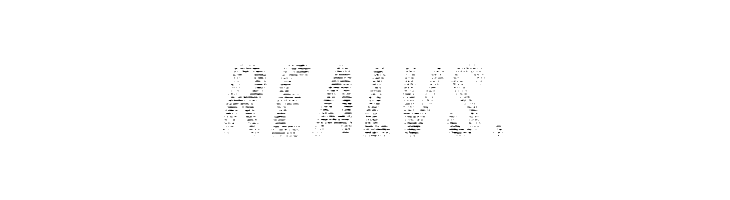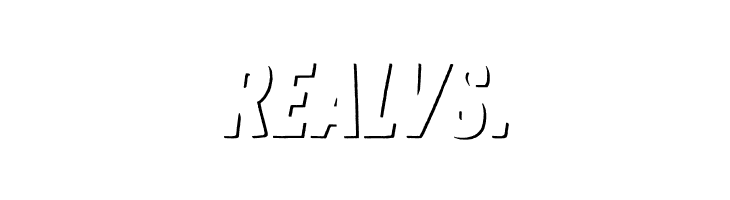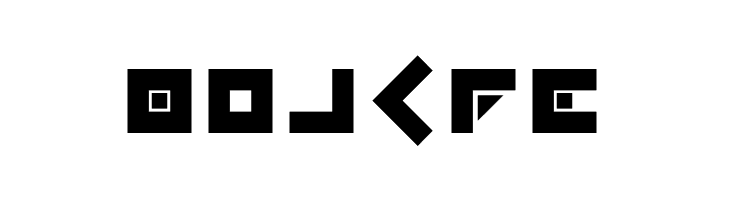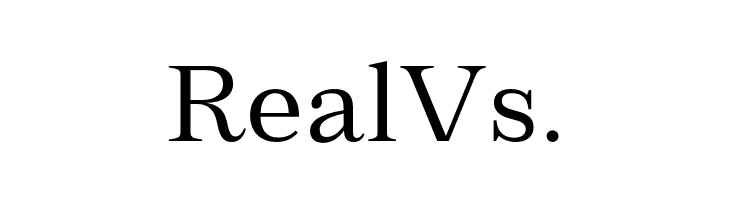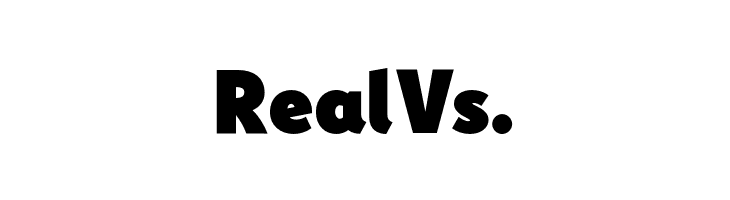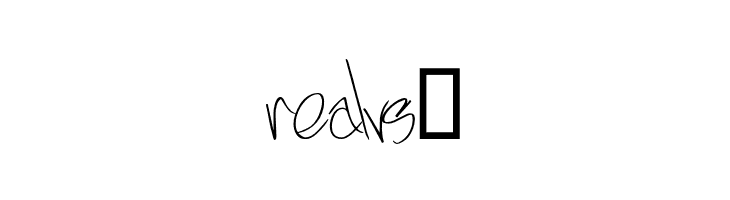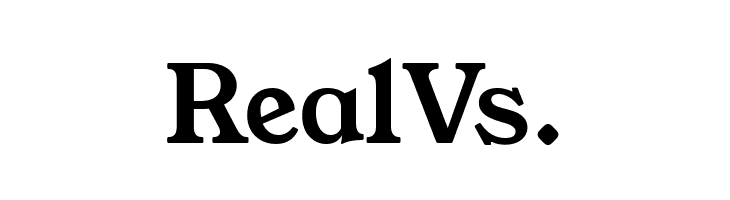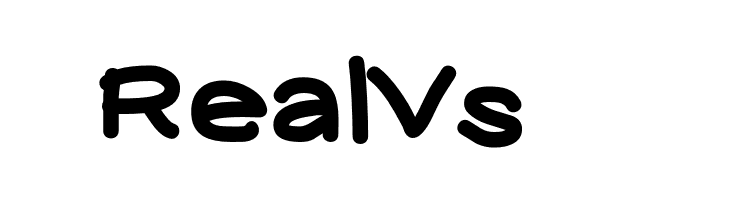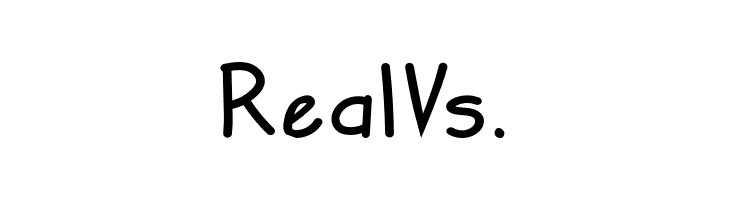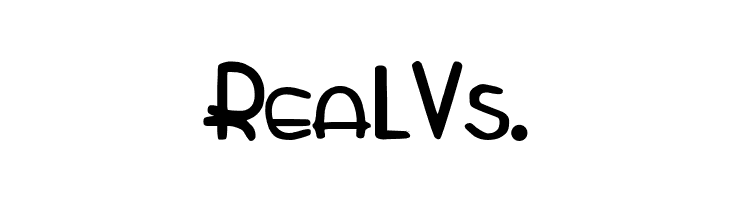
A bold, playful font with geometric and organic shapes.
A playful, handwritten script font with elongated, fluid strokes.
A modern sans-serif font with clean lines and balanced proportions.
A bold, rounded font with a strong, uniform appearance.
A dynamic, brush-like font with expressive, hand-drawn strokes.
A bold serif typeface with strong strokes and classic elements.
A clean and elegant serif font with a light weight and balanced proportions.
A modern serif font with medium weight and balanced proportions, ideal for versatile applications.
A modern serif font with elegant proportions and clear readability.
A semi-bold serif font with moderate contrast and a classic yet modern appeal.
A playful, rounded font with a bold and friendly style.
A playful, rounded font with a bold and smooth design, ideal for creative projects.
A geometric, angular font with bold, clean lines and a modern architectural style.
A bold, dynamic font with sharp, jagged edges and a strong visual impact.
A bold, geometric font with a futuristic, digital aesthetic.
A refined serif font with elegant, thin strokes and high contrast.
A pixelated, blocky font with a retro digital aesthetic.
A bold, modern font with a slightly condensed width and strong presence.
Bold, shadowed font with a dynamic, three-dimensional style.
A bold, textured font with diagonal lines for a dynamic, modern look.
A modern, textured font with horizontal lines and a slight slant.
A modern, light sans-serif font with clean lines and balanced spacing.
A semi-bold, slanted script font with a modern, handwritten style.
A playful, casual handwritten font with smooth, rounded edges and a friendly appearance.
A playful, hand-drawn outlined font with a whimsical and approachable style.